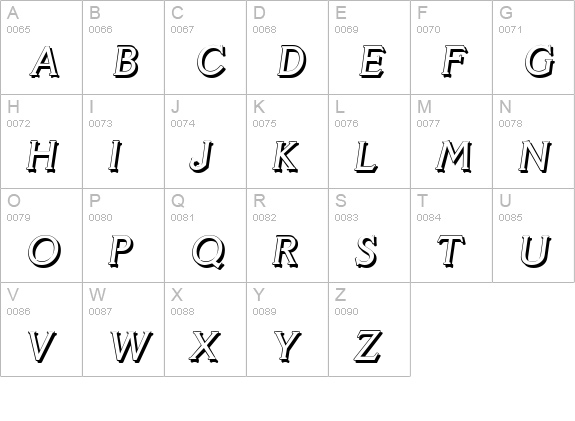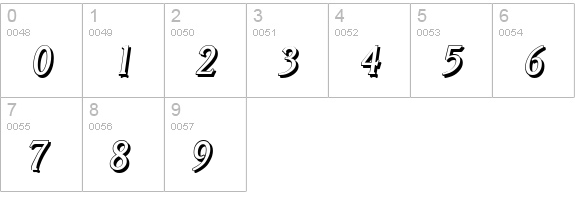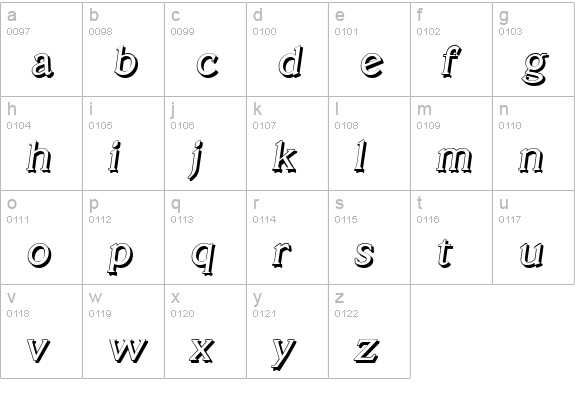
VeracruzShadow-Italic Font Details
VeracruzShadow-Italic is a distinctive, italic variant in the VeracruzShadow typeface family \xE2\x80\x94 well suited to design and typography projects.
VeracruzShadow-Italic is a striking and elegant typeface that exudes a sense of mystery and sophistication. The slanted italic design adds a touch of drama to any project, making it perfect for adding a bold and unique flair to your designs. The delicate shadows give the letters a sense of depth and dimension, creating a visually captivating appearance. This font is not only visually stunning but also versatile, suitable for a wide range of design projects including branding, logos, packaging, invitations, and more. Its graceful curves and intricate details make it a standout choice for anyone looking to make a statement with their typography. Best of all, VeracruzShadow-Italic is available for free download at FontsMarket.com, making it easily accessible for designers and creatives looking to add a touch of sophistication to their work. Don't miss out on the opportunity to elevate your designs with this exquisite and distinctive font.